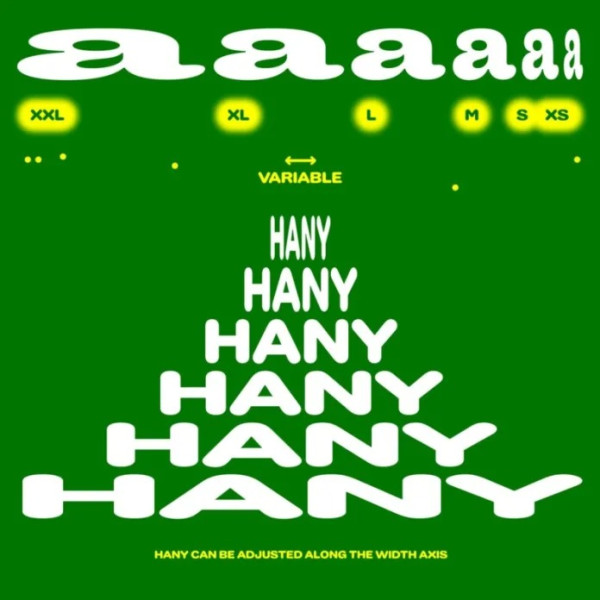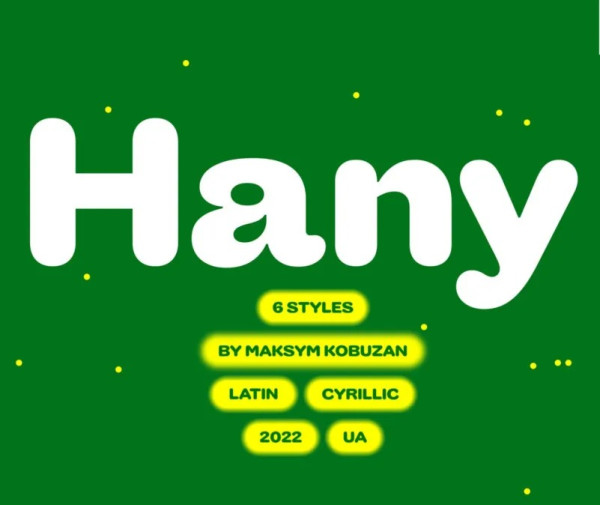
Hany Font
Hany Font, is a cheerful sans serif with rounded shapes, equipped with Latin and Ukrainian language support. HANY includes only one weight, but it stretches across the width axis. Literally. It seems to be like rubber, mechanically compressed
and stretched, but this takes into account all optical compensation and distortion.
One of the features of HANY is some unusual closed characters, such as ‘a’, ‘s’, ‘k’. Which rhyme very well with each other and create a funny rhythm for the entire typeface.